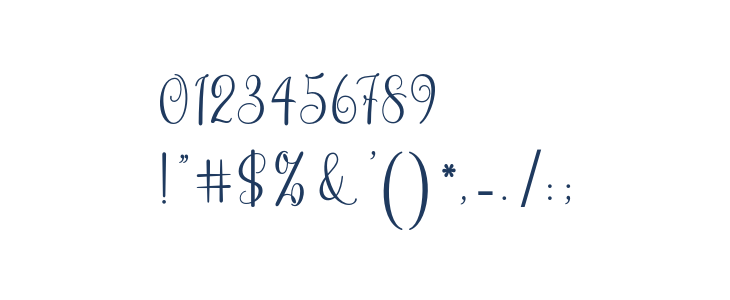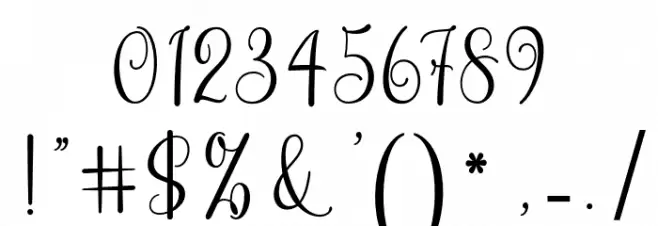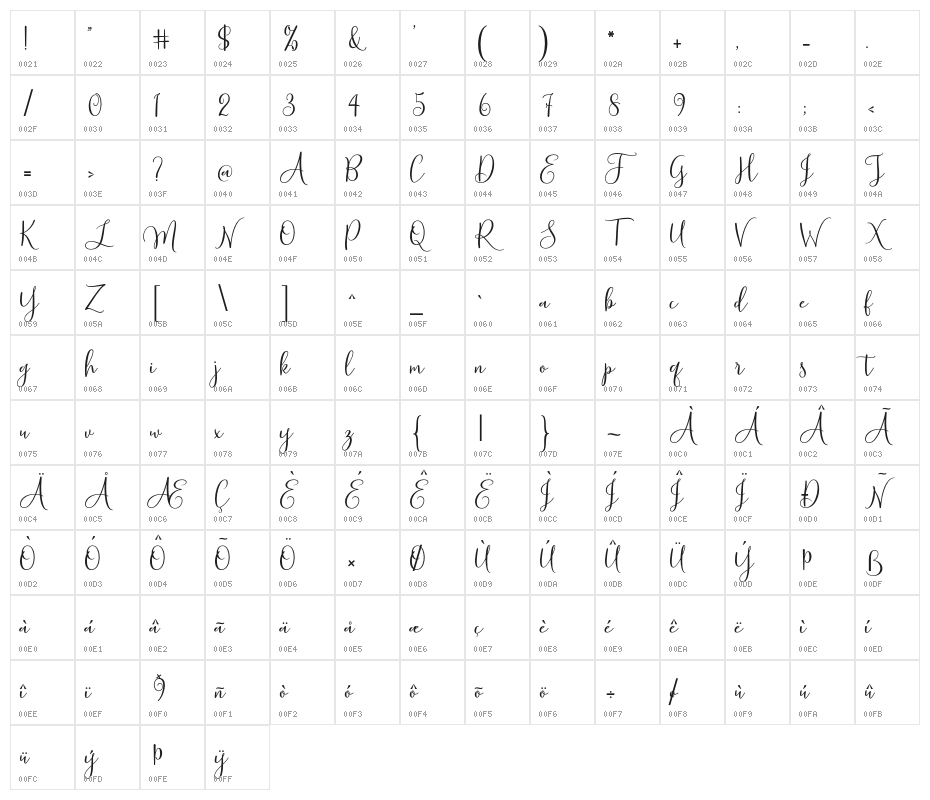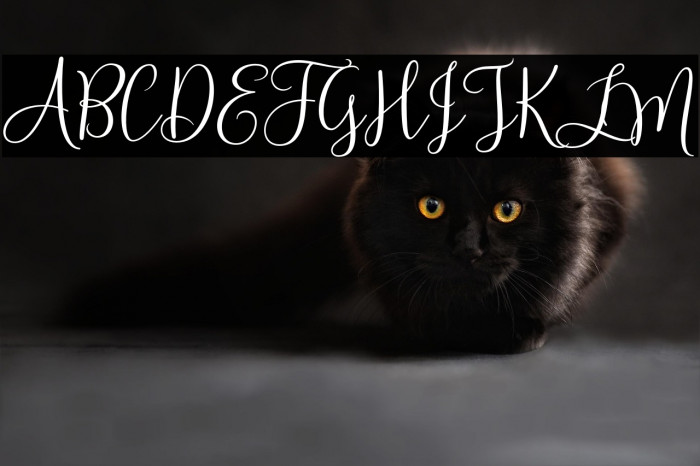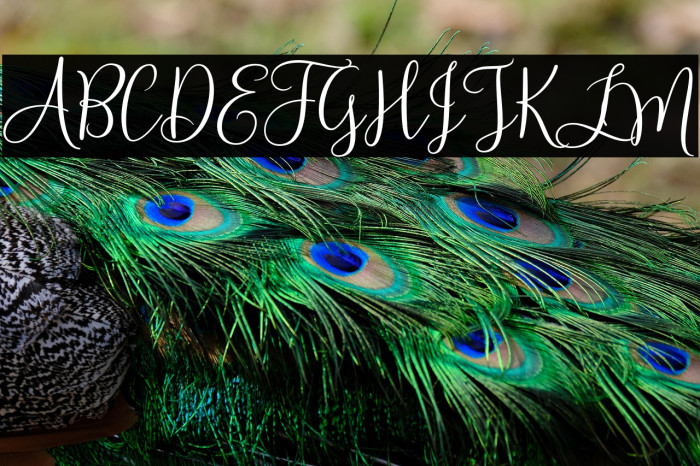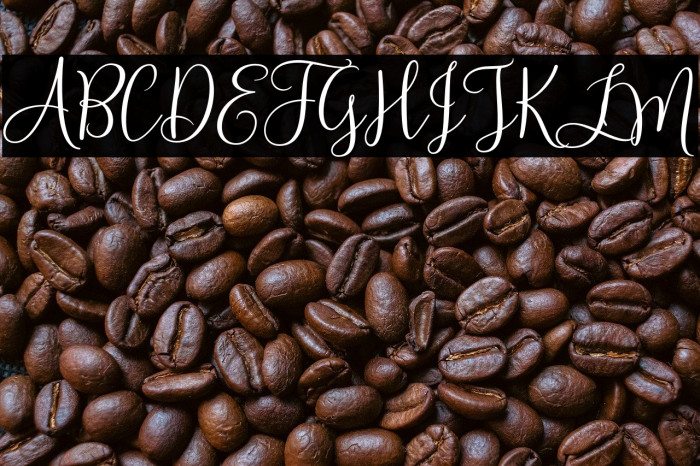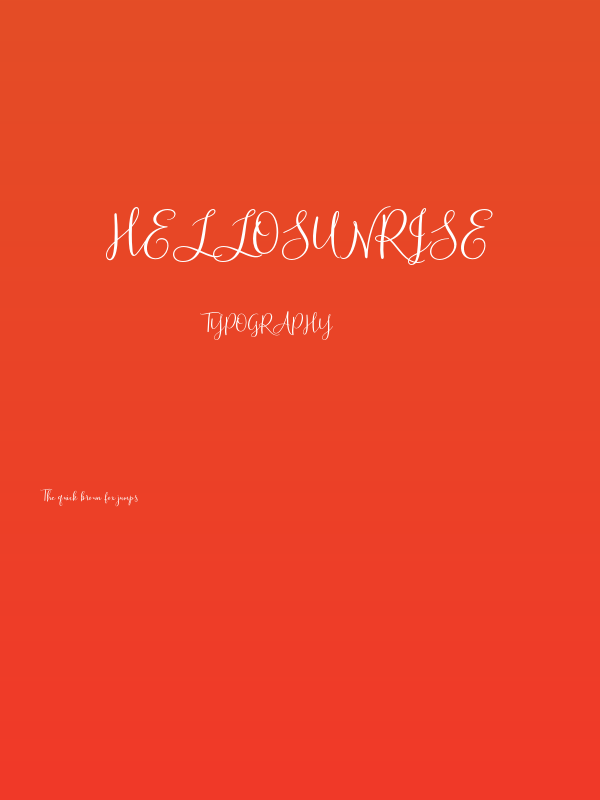
HelloSunrise Font
HelloSunrise Description
This font exudes a playful and elegant charm, characterized by its flowing, cursive script style. The uppercase letters are notably ornate, with sweeping curves and loops that give a sense of movement and grace. The lowercase letters maintain a consistent style, with smooth connections and a slightly more restrained flourish. Numbers and special characters are designed to match the overall aesthetic, featuring similar curves and a touch of whimsy. The font's design is both sophisticated and approachable, making it versatile for various creative applications.